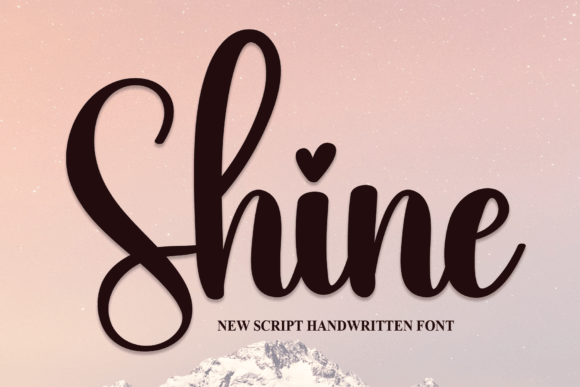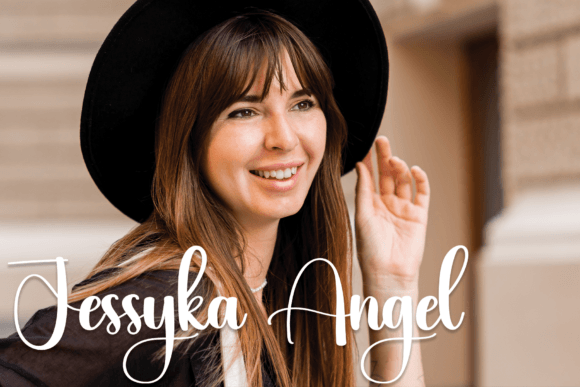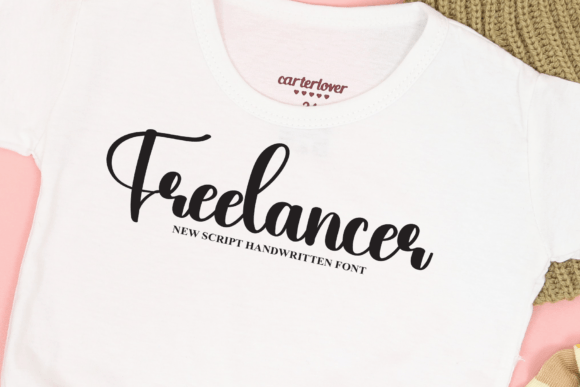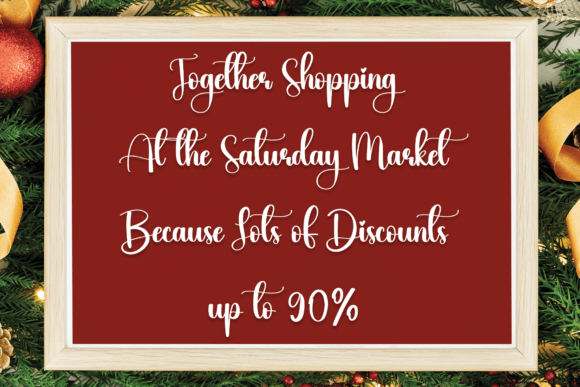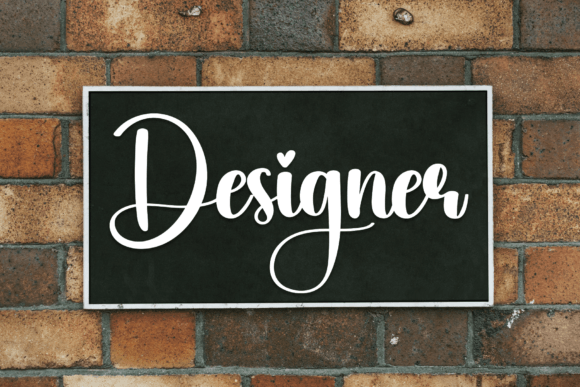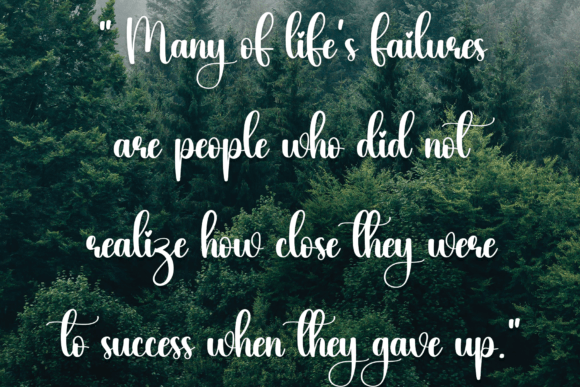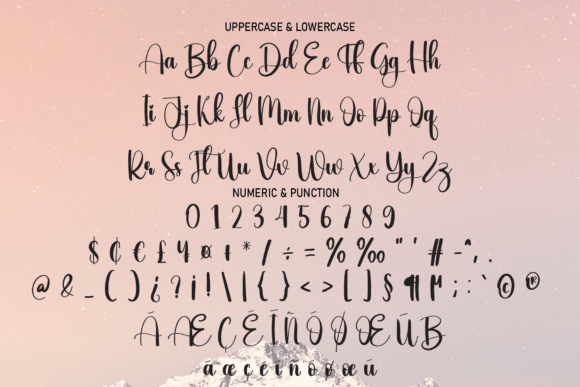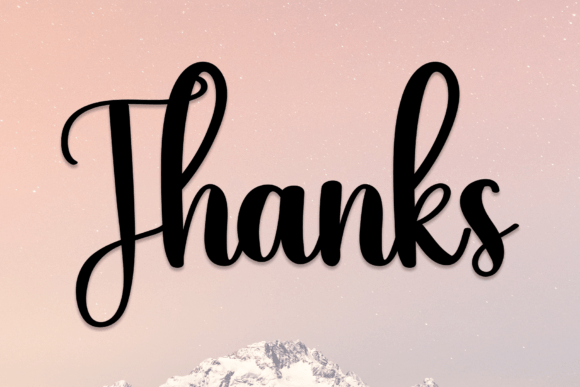
Shine Font
The Shine font offers a graceful and elegant handwritten style that fits perfectly with a wide range of creative projects. Its latest style letters are ideal for wall displays, wedding invitations, social media post logos, advertisements, product packaging, product designs, labels, photography, watermarks, invitations, stationery, and much more.
With smooth strokes and a natural flow, the Shine font adds a personal and handcrafted feel to any design. It balances beauty and readability, making it versatile for both headlines and smaller text elements.
Whether you are working on romantic wedding stationery or professional branding materials, the Shine font delivers sophistication and charm. It enhances logos, packaging, and promotional designs with its unique handwritten touch.
Downloading the Shine font means adding a stylish and refined script to your font library. Its flowing handwritten style guarantees that your projects will stand out with warmth and elegance.
In summary, the Shine font is a beautiful and versatile handwritten script perfect for weddings, branding, packaging, social media, and many other creative uses. Download it today to bring your designs a unique and elegant flair.